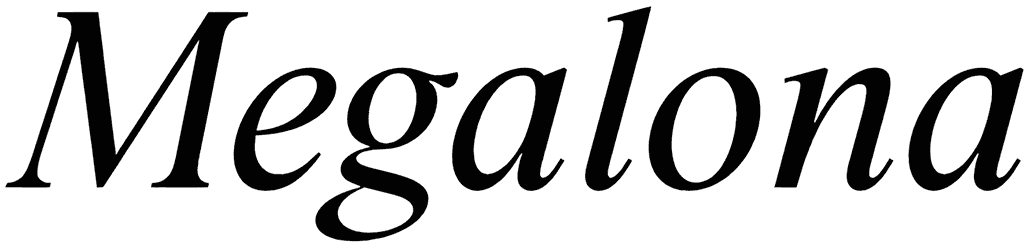
BD Megalona Font
BD Megalona represents authority and reliability and brings this spirit to your designs. Serif font with a powerful and justified appearance can be defined as an emblem of professionalism, while its outward appearance would admirably serve for assorted projects.
This masterpiece, despite lacking numbers, leaves no stone unturned in displaying your exhibition skillfully, especially the artwork, similar to covers, movie titles, documents, packaging, and so on. Not a moment too soon, make quick access to our inventory of dazzling assets to depict your personality!